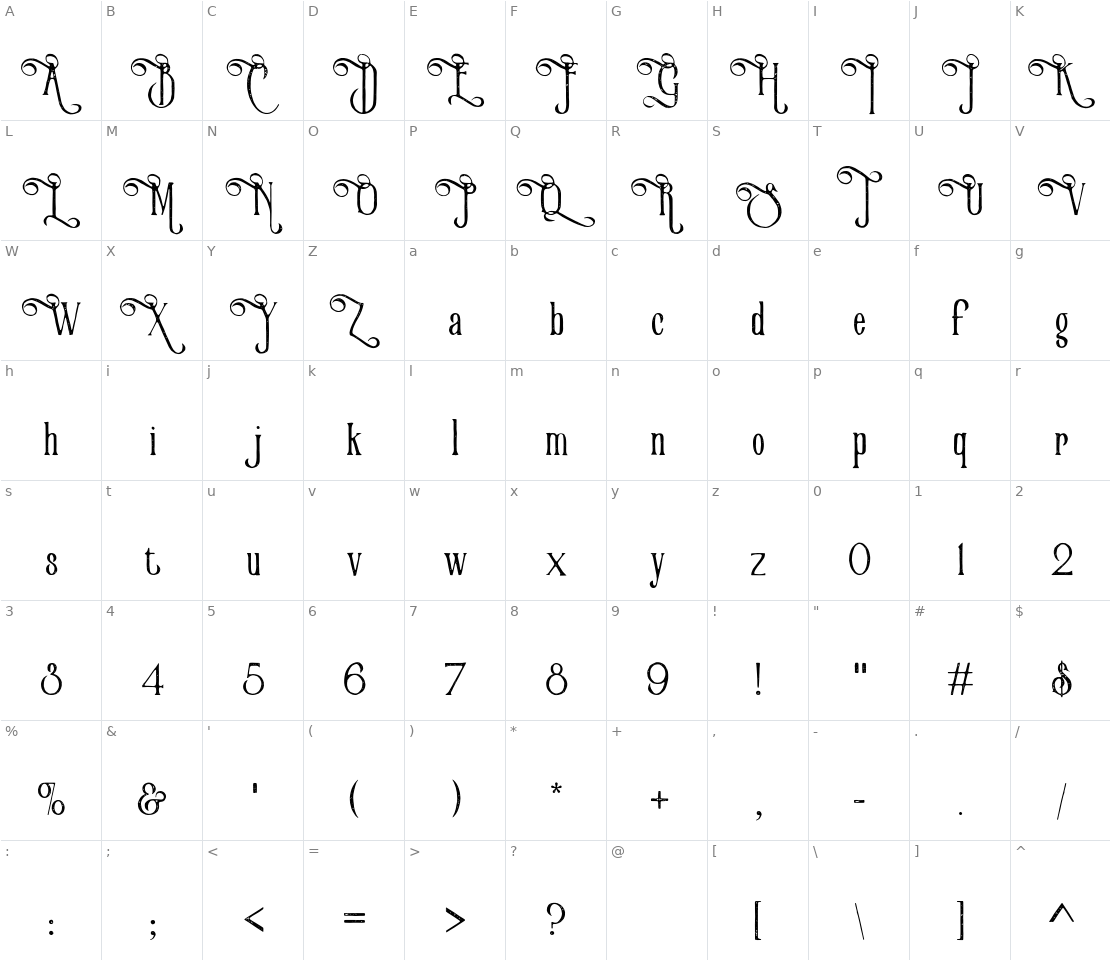
Victorian Parlor
Victorian Parlor is a thin, ornamental serif from Burntilldead Typefoundry with delicate curling details that recall the fussy elegance of 19th-century decorative lettering. The letterforms are light and intricate, full of the kind of flourishes you'd find on a vintage apothecary label or parlor room signage. Best kept to headlines and display settings where the fine detail won't get lost.